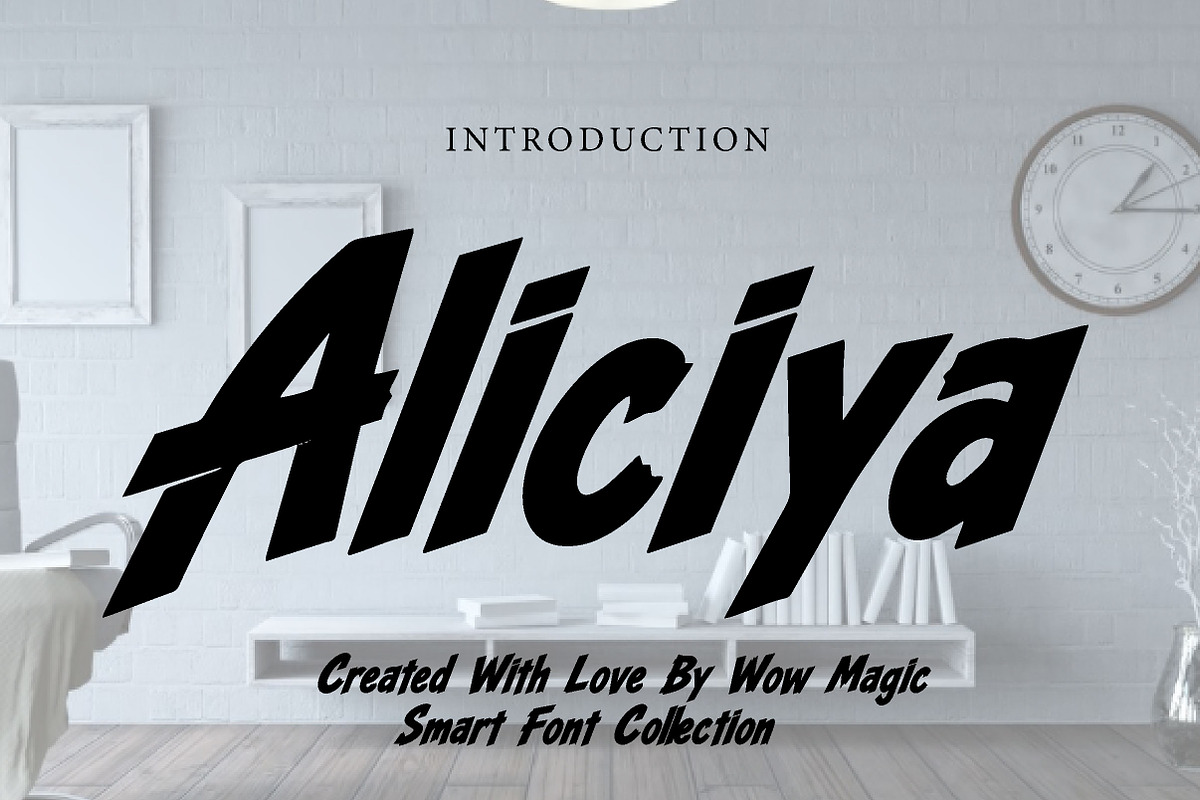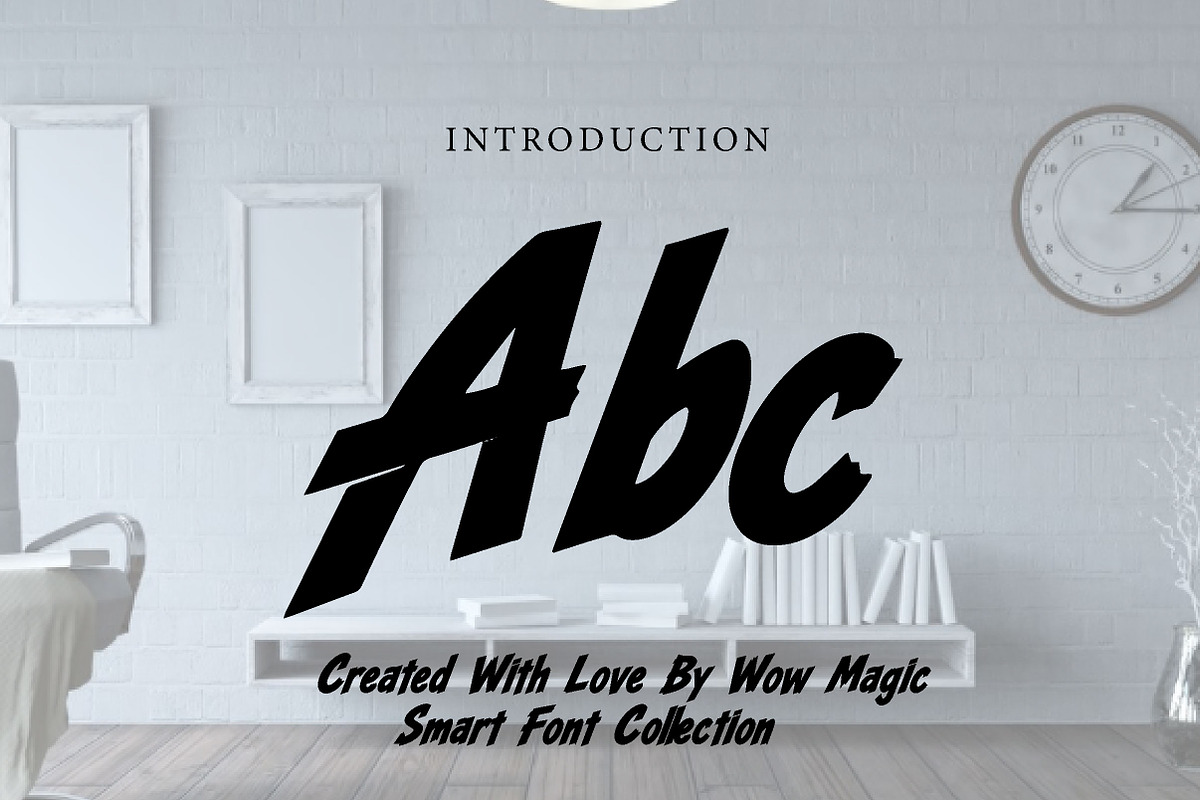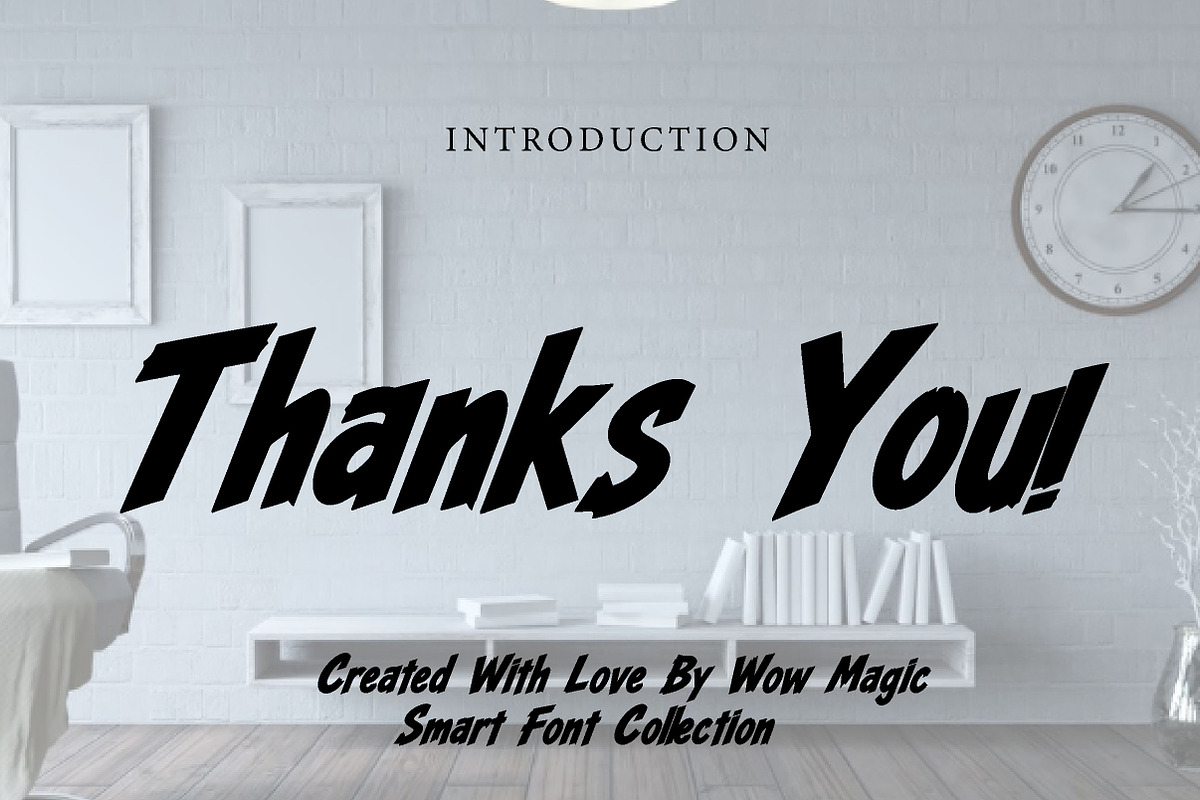
Aliciya
Aliciya – Bold Futuristic Italic Display Font
Short Description
Aliciya is a bold, sharp, and futuristic italic display font, perfect for gaming, tech branding, posters, logos, and high-impact creative projects.
Full Description
Aliciya is a dynamic futuristic display font designed to bring speed, energy, and a strong visual edge to your designs. With its sharp angled cuts, bold italic structure, and aggressive letterforms, this font creates a striking modern look that feels fast, powerful, and attention-grabbing.
Its techno-inspired style makes Aliciya perfect for projects that need a bold and cutting-edge identity. Whether you are designing gaming graphics, esports branding, posters, logos, product packaging, album covers, social media visuals, or action-driven headlines, this font helps your typography stand out with confidence and movement.
The slanted construction gives the font a sense of motion, while the geometric cuts add a futuristic and edgy character. Suitable for both print and digital use, Aliciya is an excellent choice for designers who want a typeface that feels modern, intense, and full of impact.
Perfect For Gaming and esports branding Tech and futuristic designs Posters and headlines Logo design Product packaging Social media graphics YouTube thumbnails Album and cover artwork Action-themed projects Bold display typography Font Features Uppercase letters Lowercase letters Numbers & punctuation Bold futuristic italic style Sharp angular cuts Dynamic and powerful look Perfect for display use